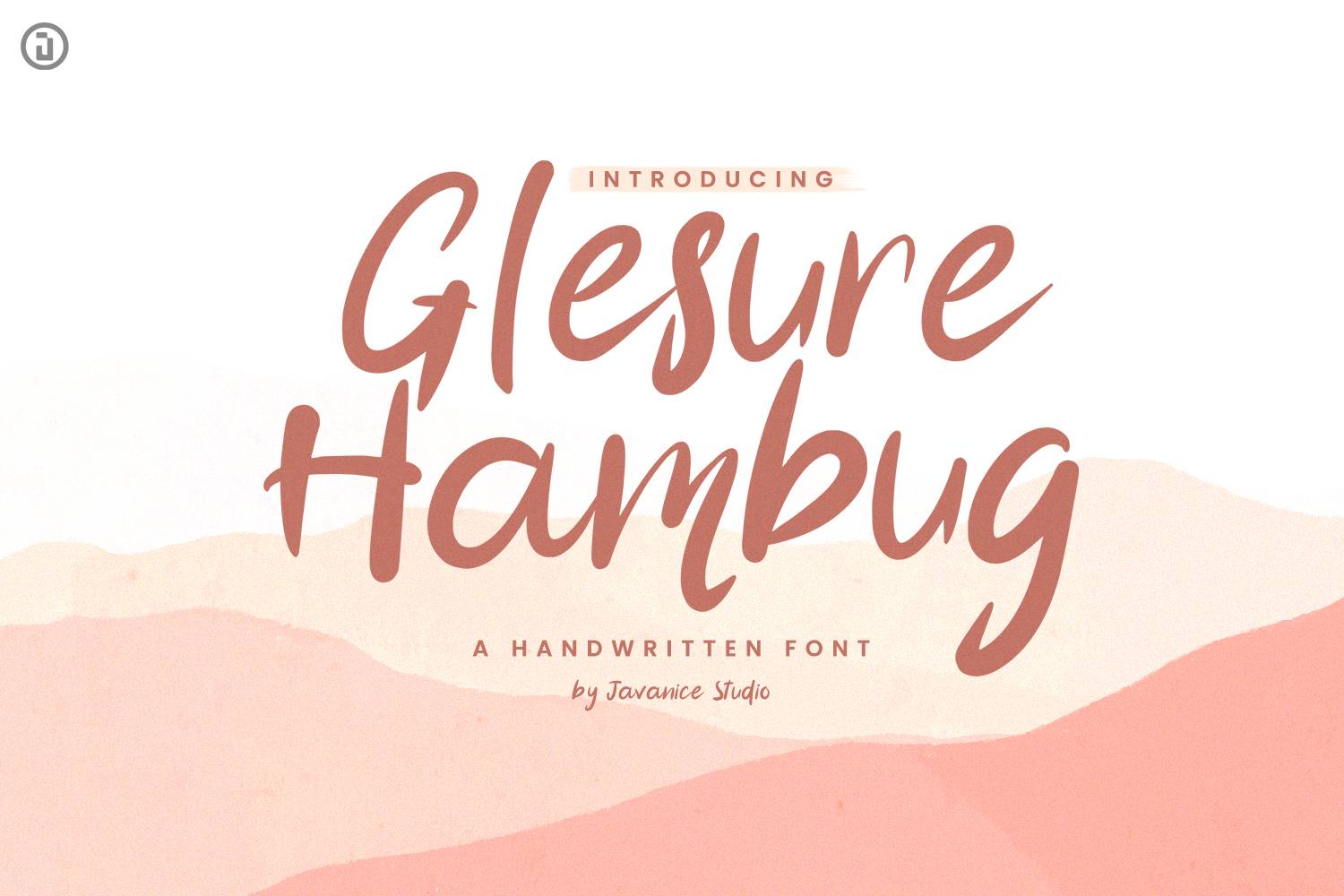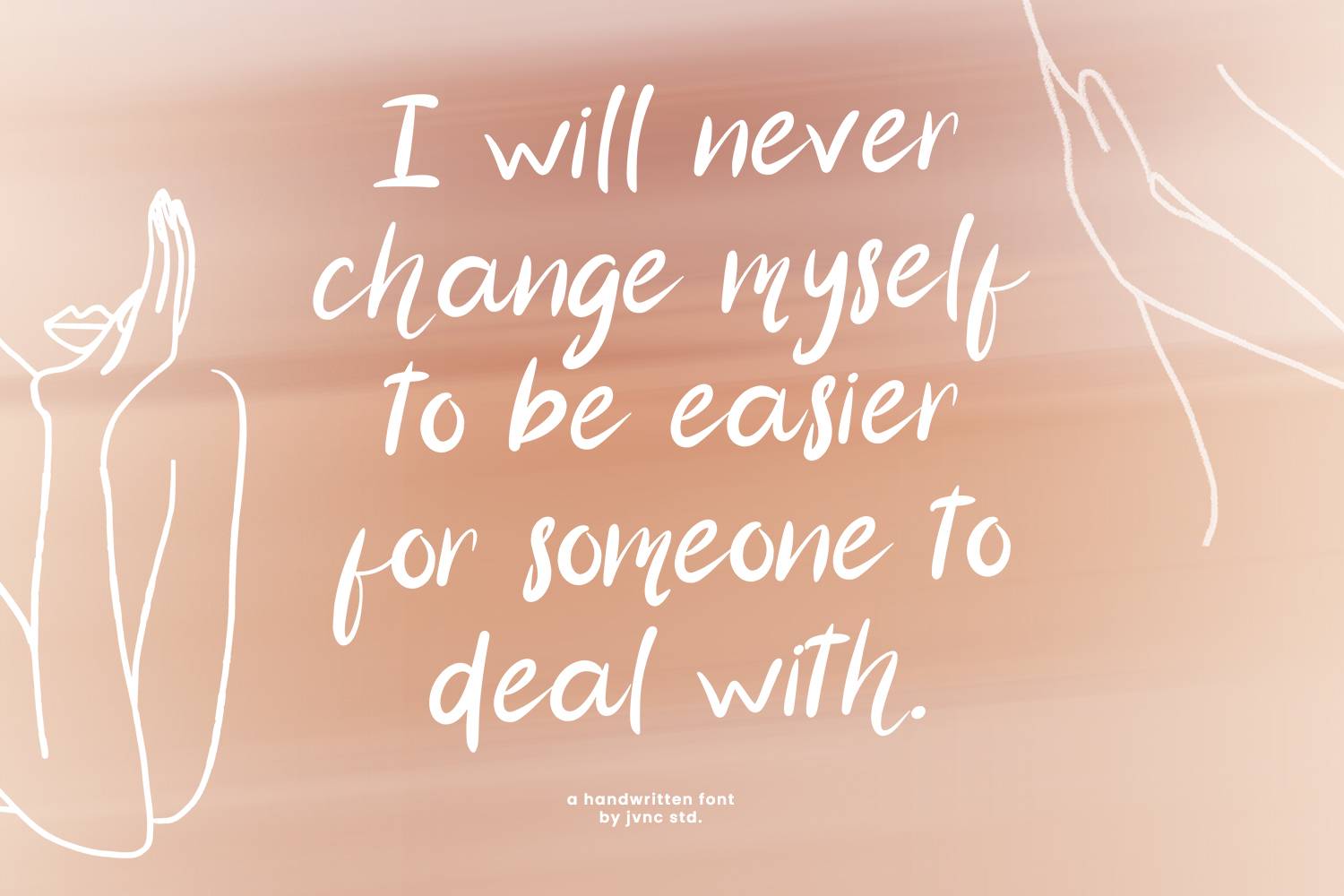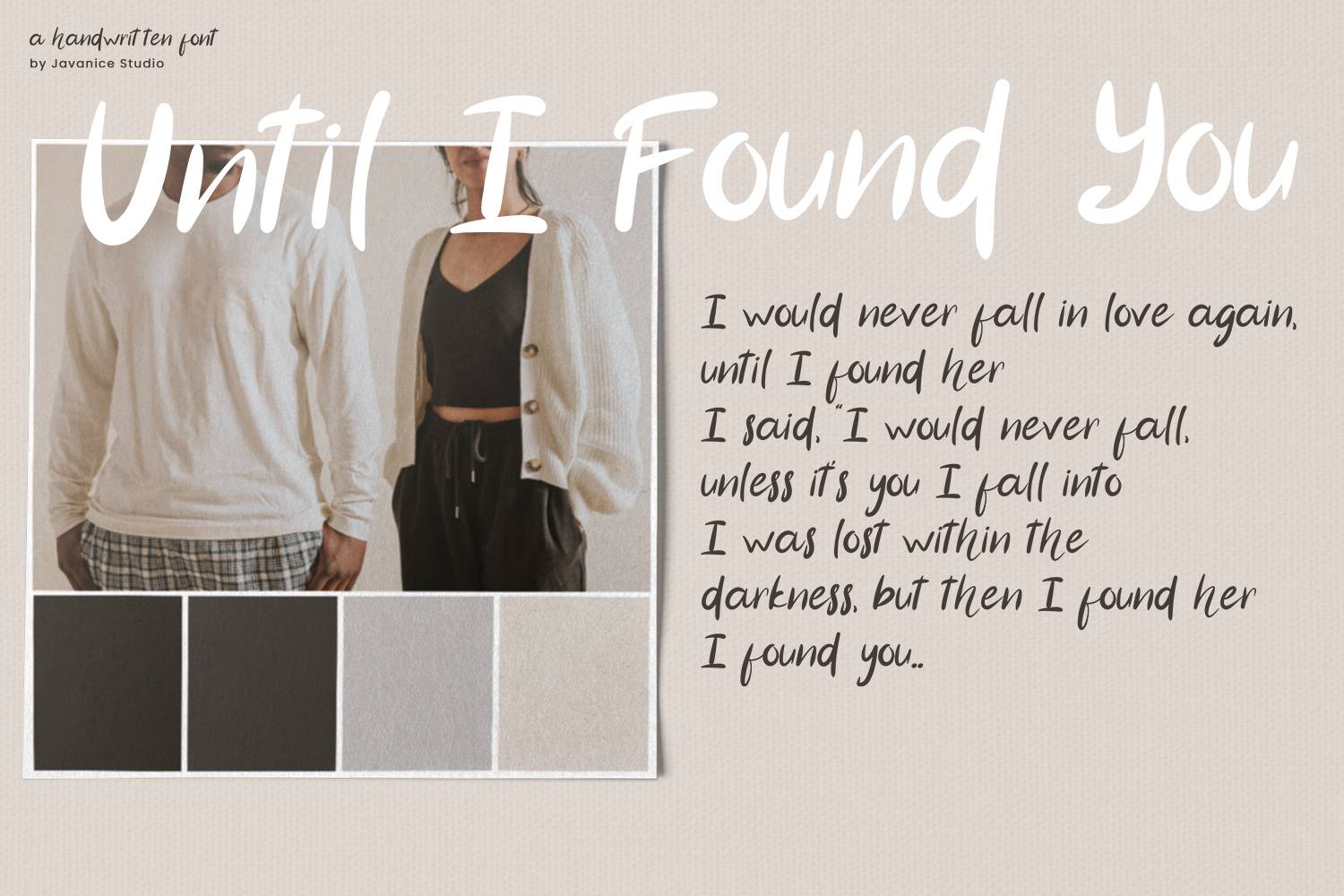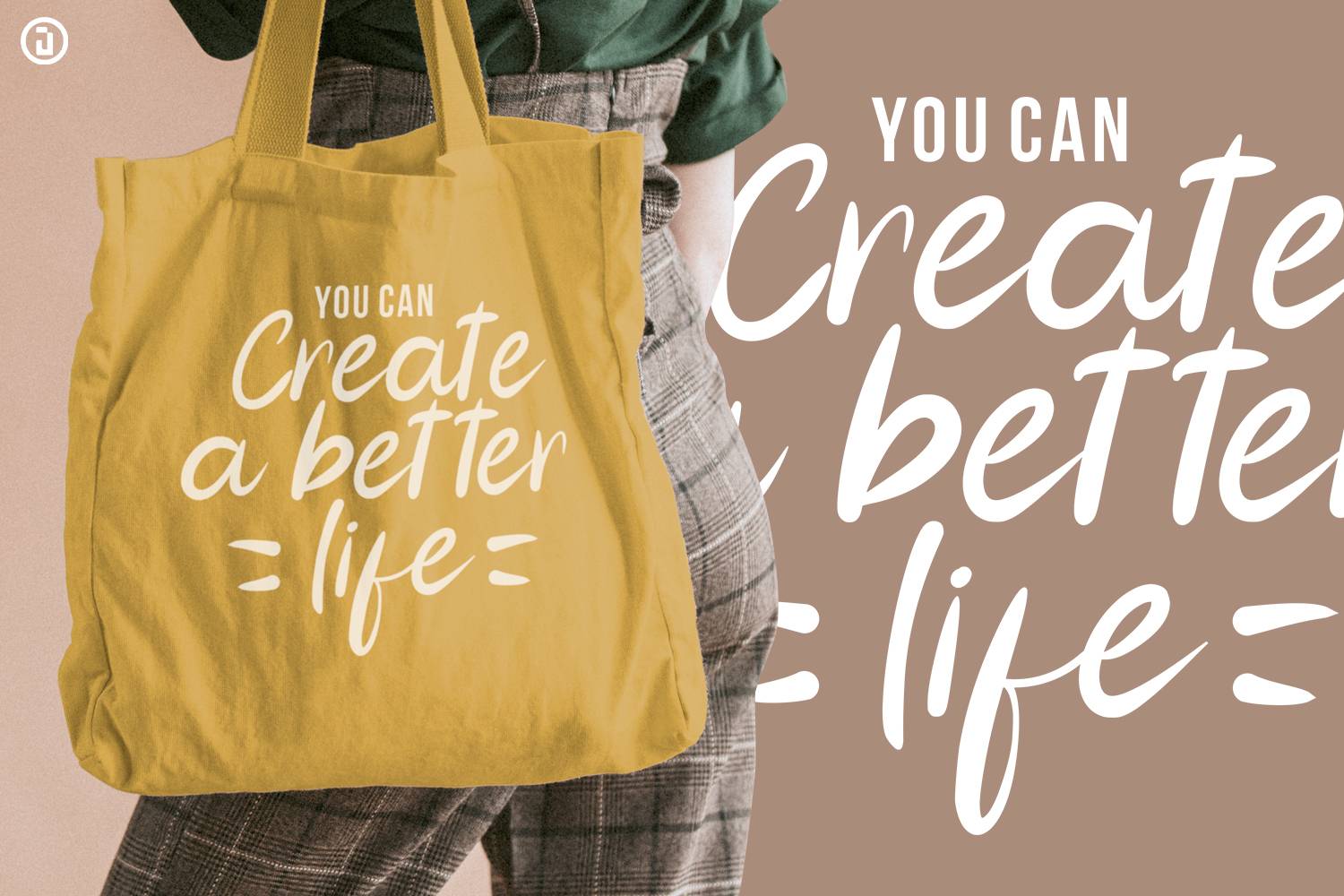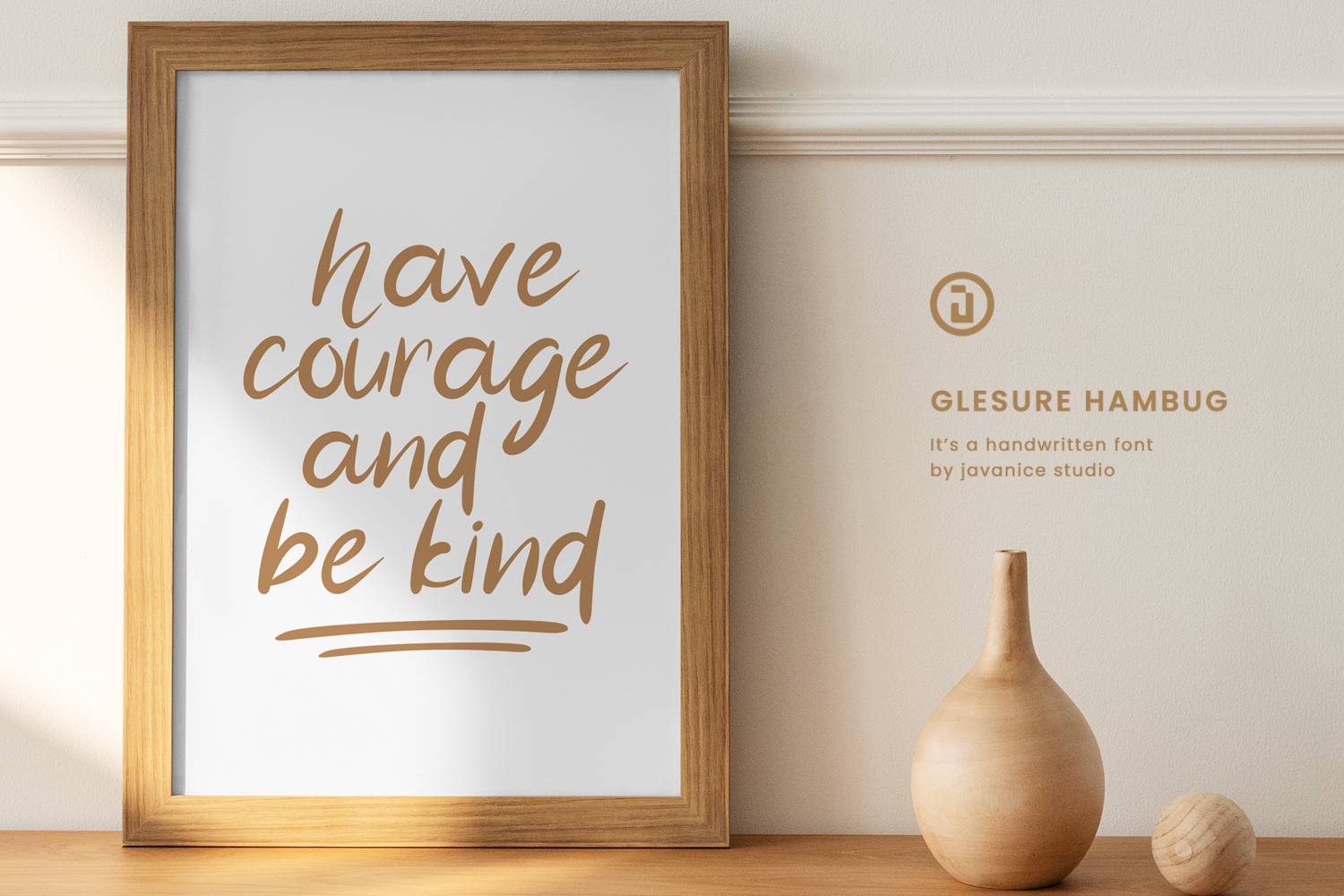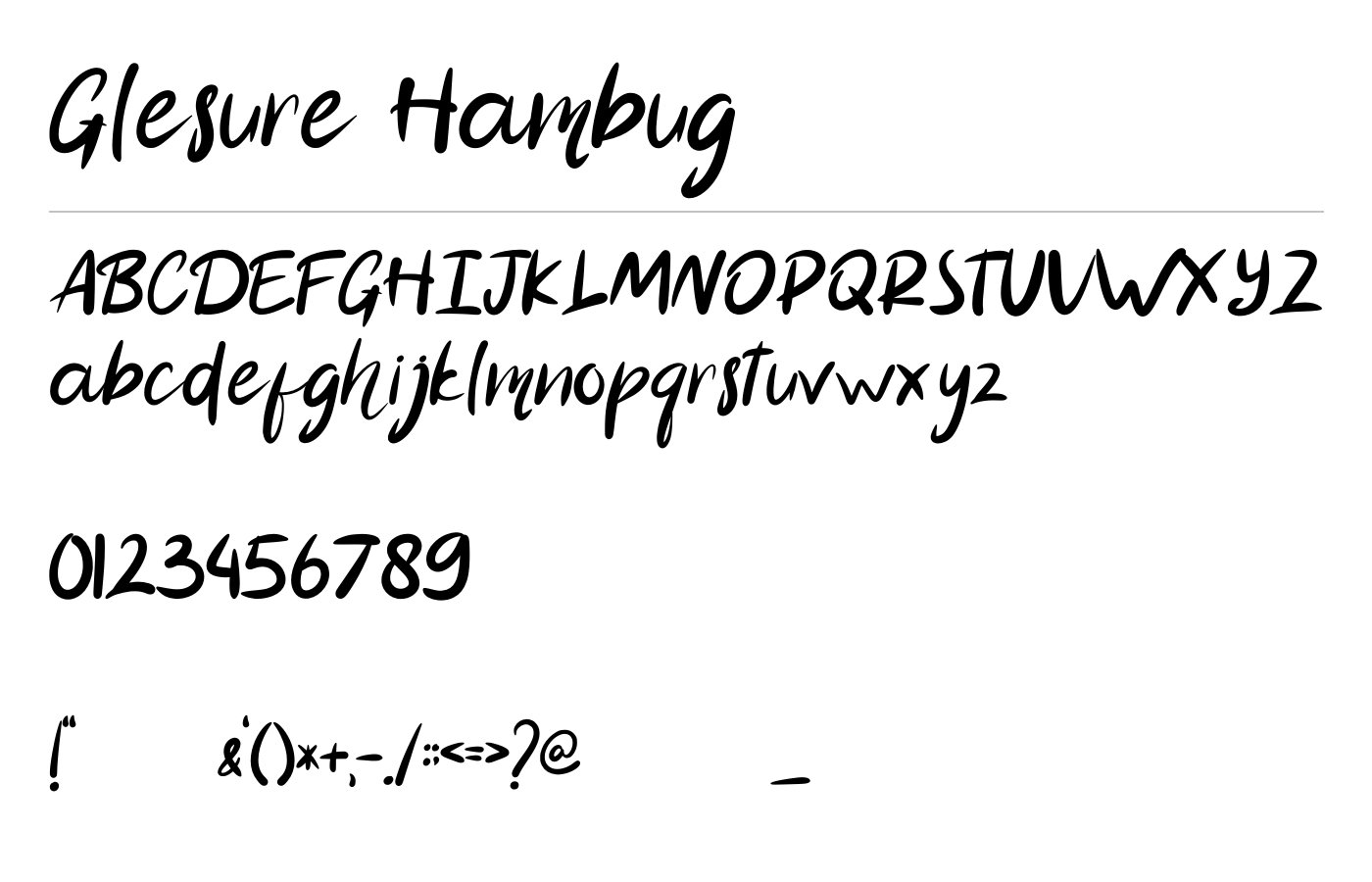
Glesure Hambug is a lively handwritten script font with a casual, friendly feel, featuring smooth, rounded strokes and moderate weight that gives it an approachable yet clear appearance. Its slightly condensed letterforms and natural flow make it ideal for informal branding, personal projects, and creative headlines where a playful and modern touch is desired. This font works especially well for logos, invitations, and social media graphics that benefit from a personal, human touch without sacrificing readability.
Glesure Hambug Font
About Glesure Hambug Font